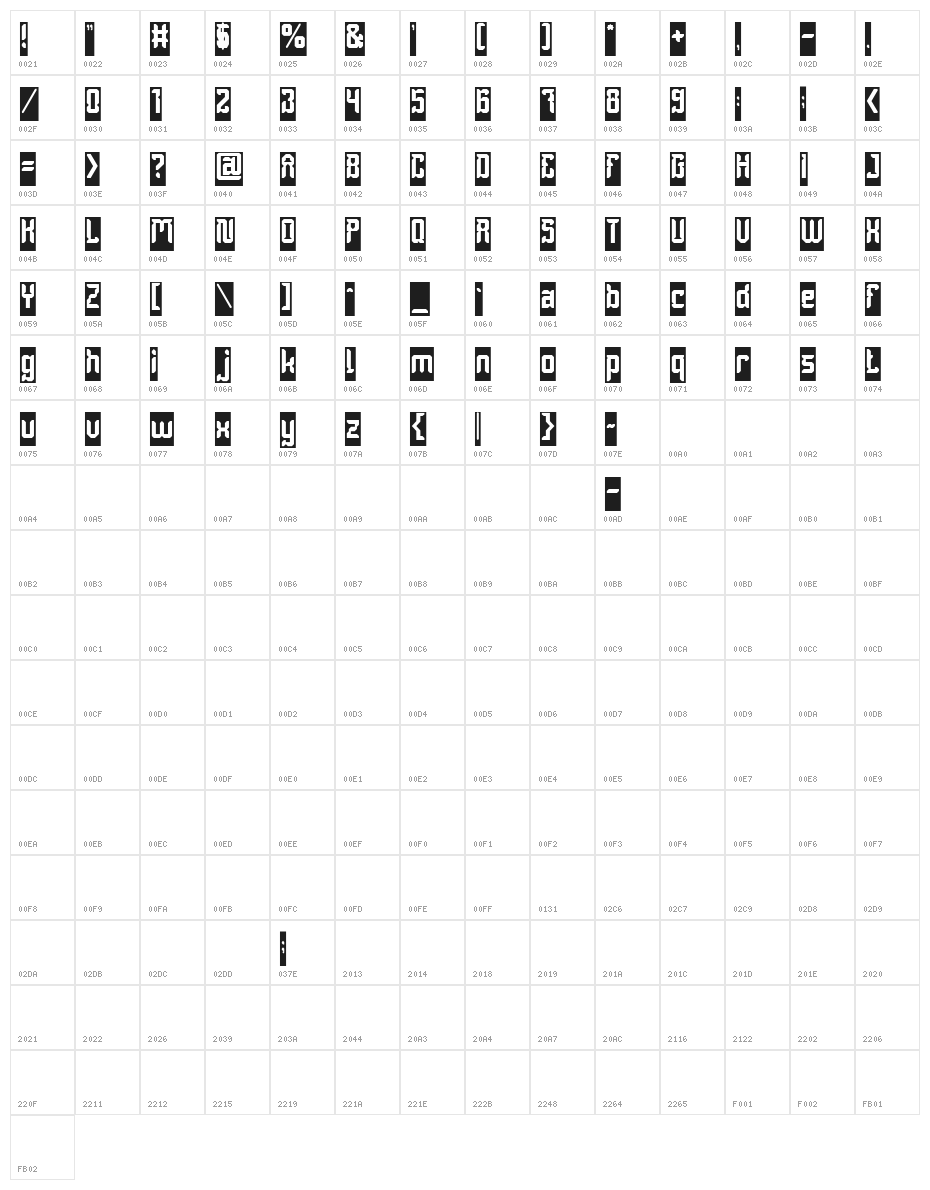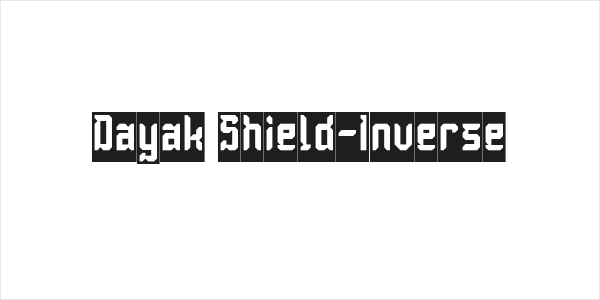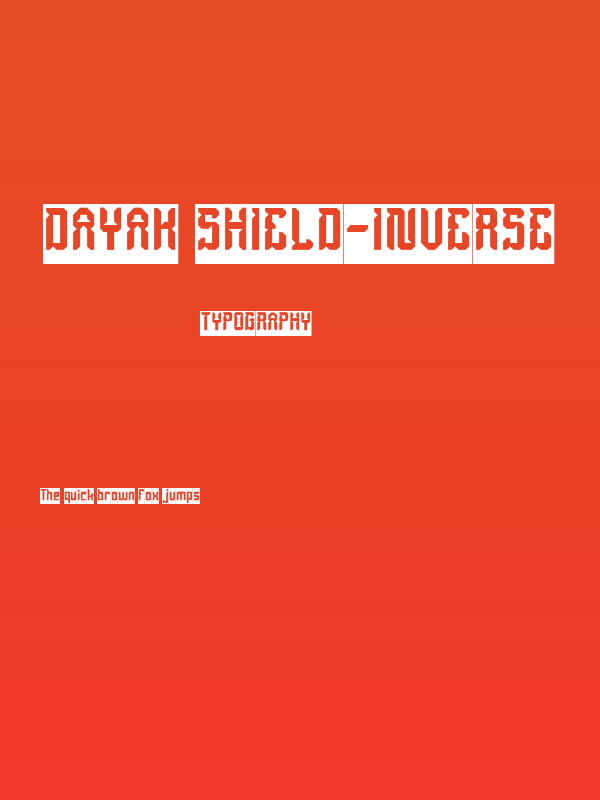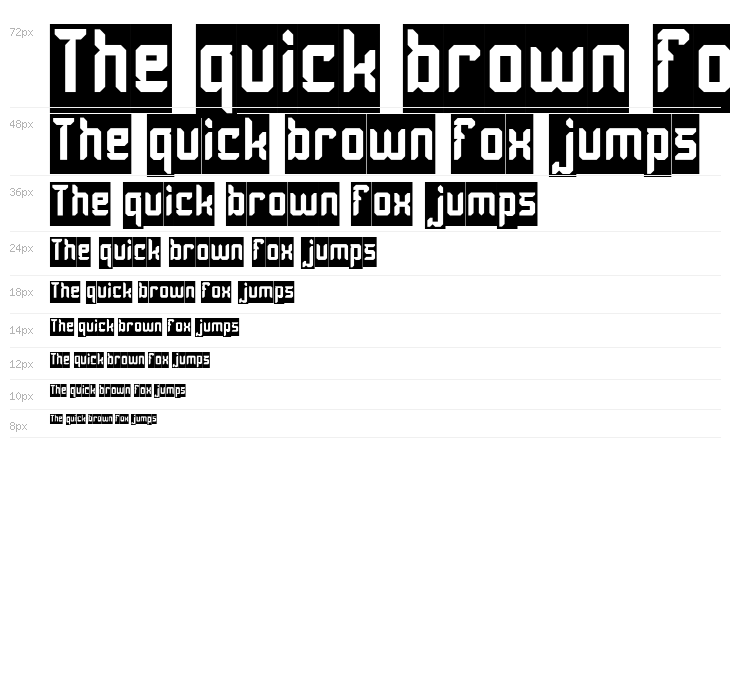
Dayak Shield-Inverse Font
Dayak Shield-Inverse Description
This font features a bold and striking design with sharp, angular edges and a geometric structure. The characters have a unique, shield-like appearance, giving them a strong and commanding presence. The uppercase and lowercase letters maintain a consistent style, with the lowercase being slightly more compact. Numbers and special characters follow the same bold and angular theme, ensuring a cohesive look across all text. The font's design is reminiscent of tribal or cultural motifs, making it ideal for projects that require a distinctive and powerful visual impact.
| Proposed Projects | Ideal for branding, posters, and any design requiring a strong, cultural aesthetic. |